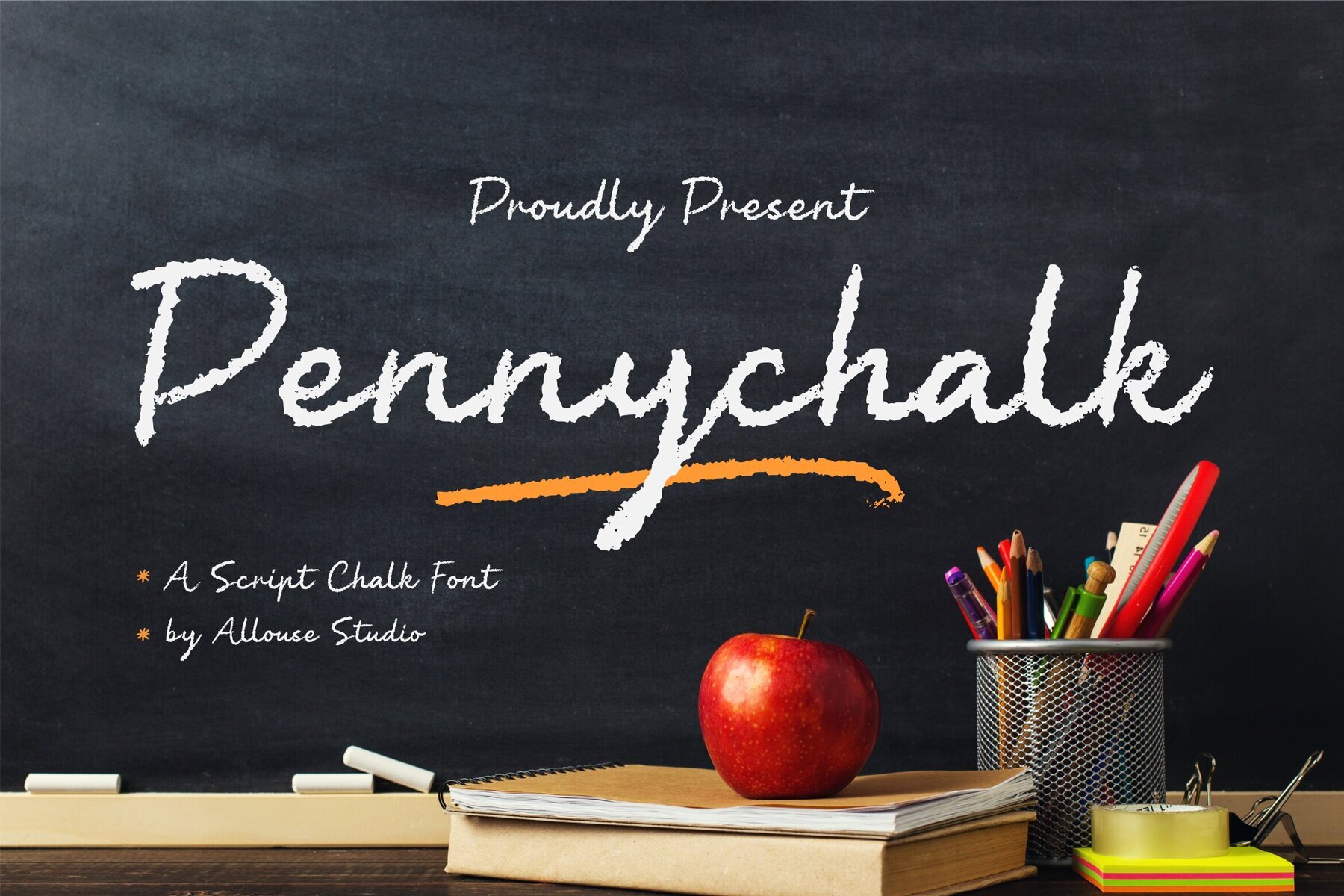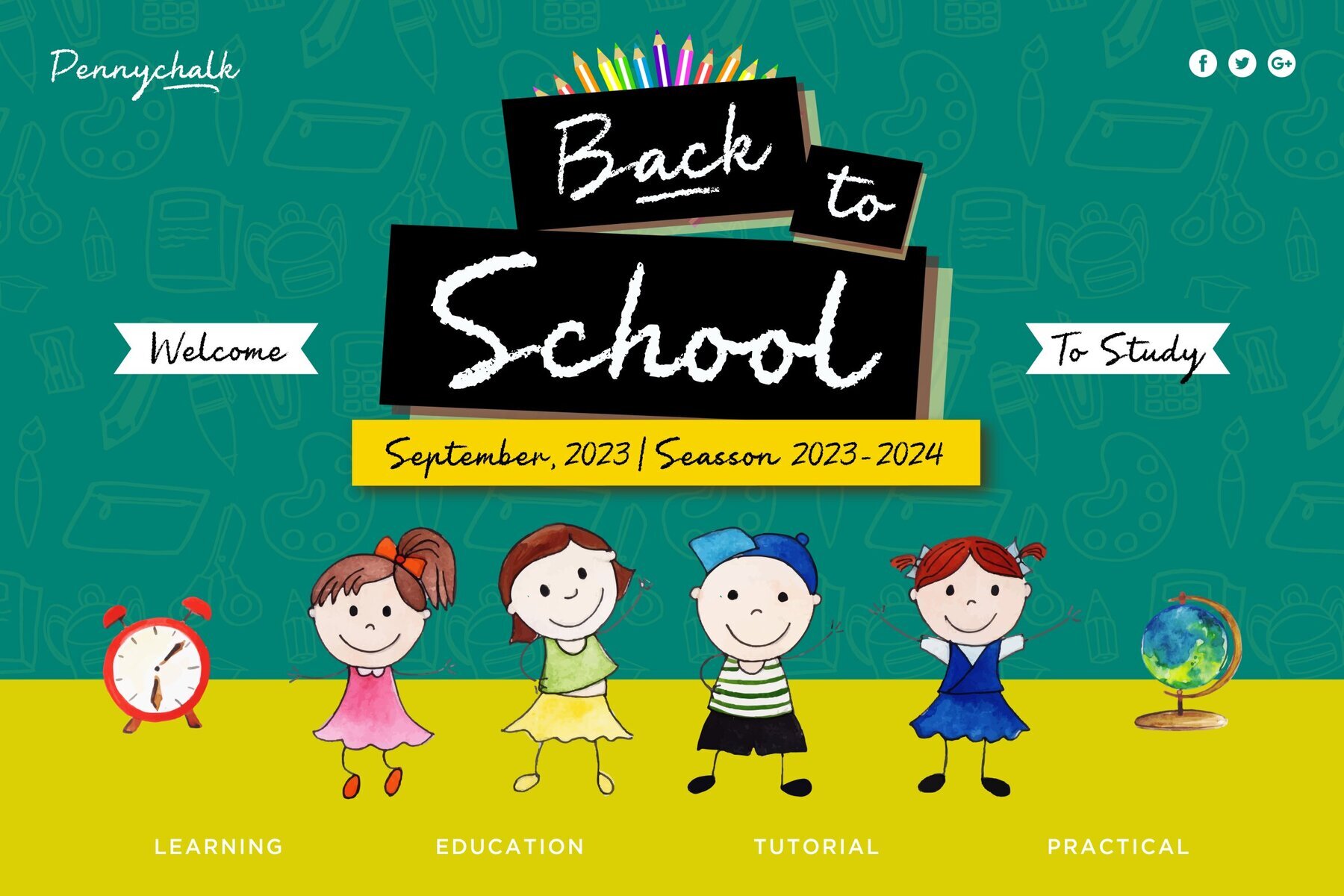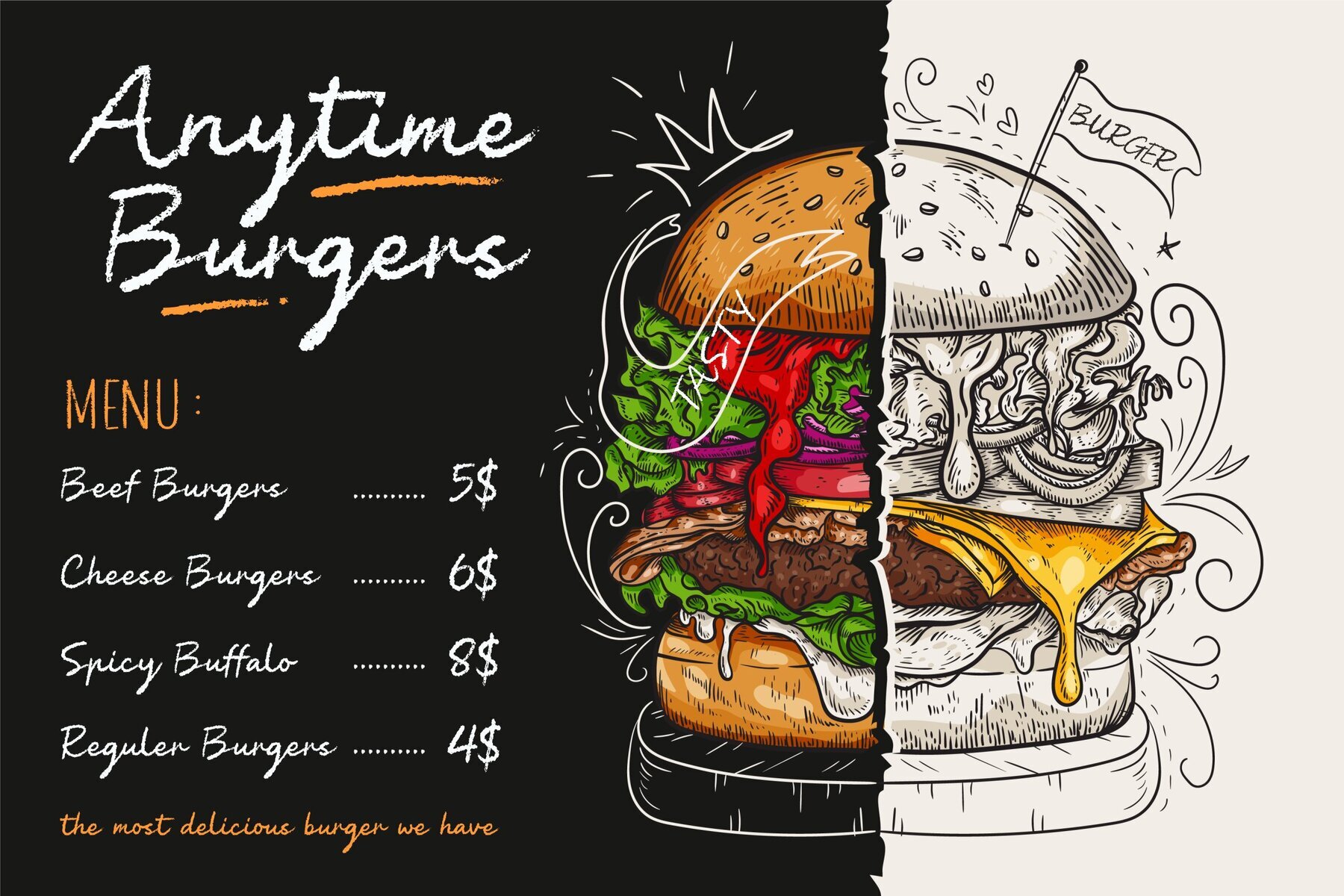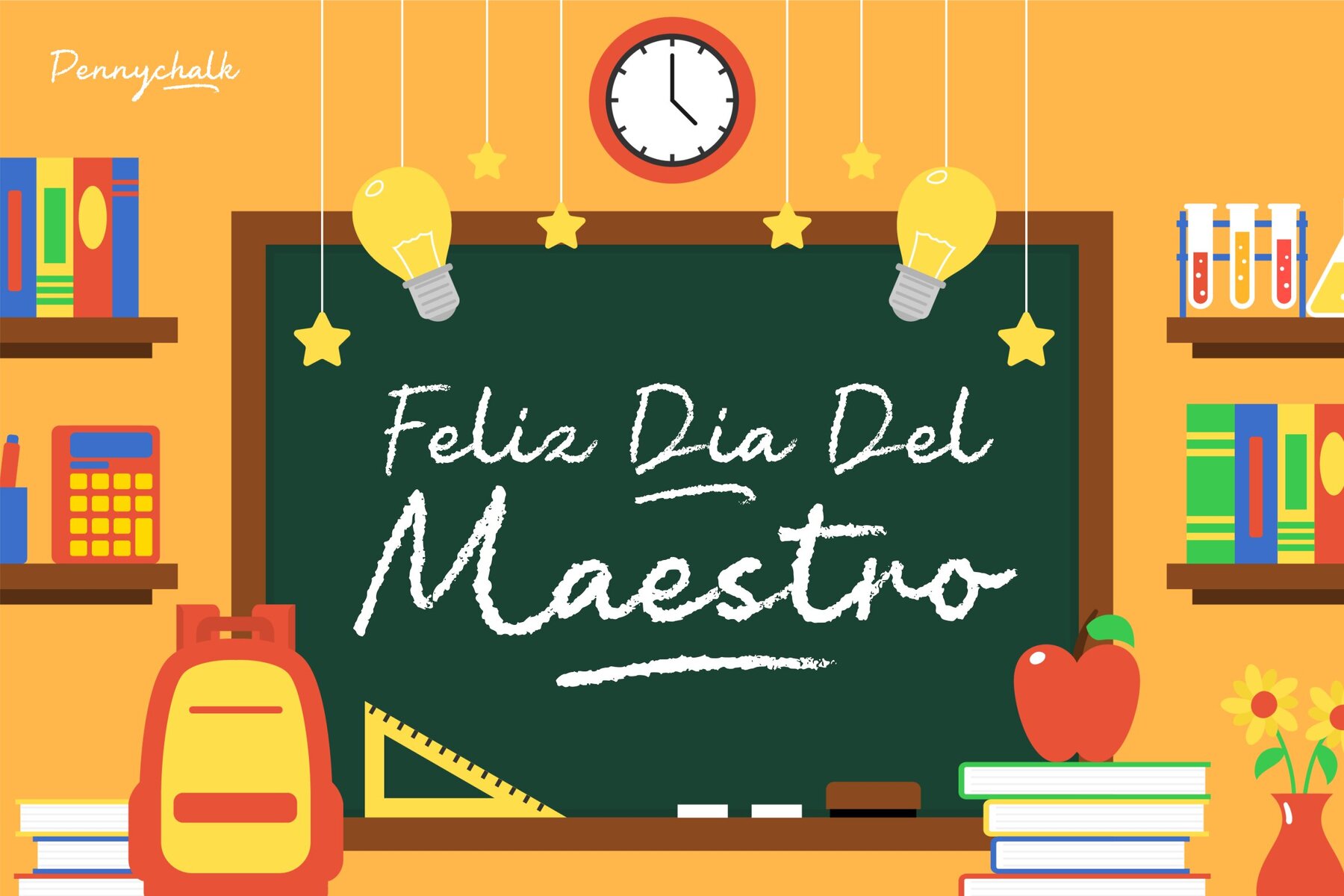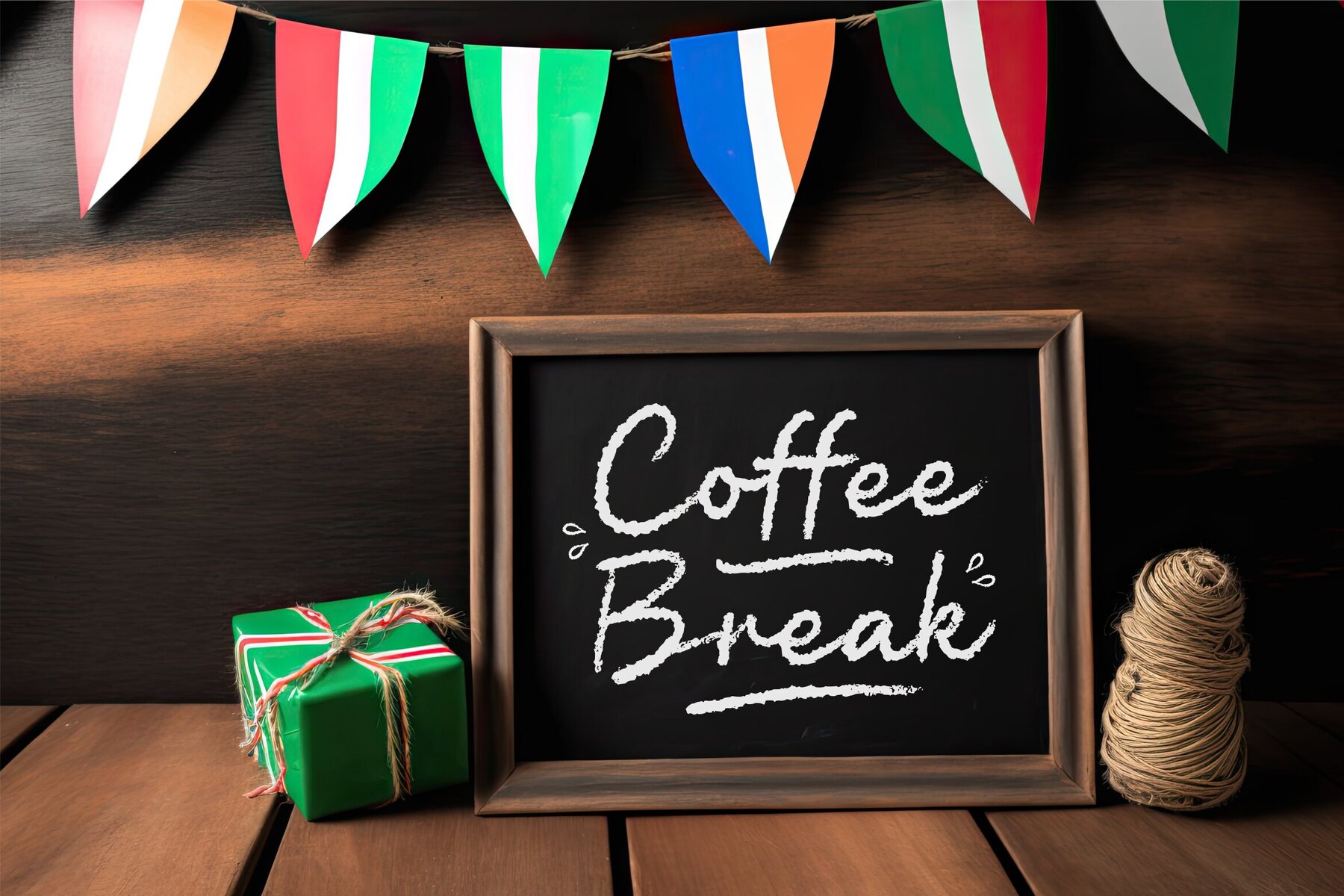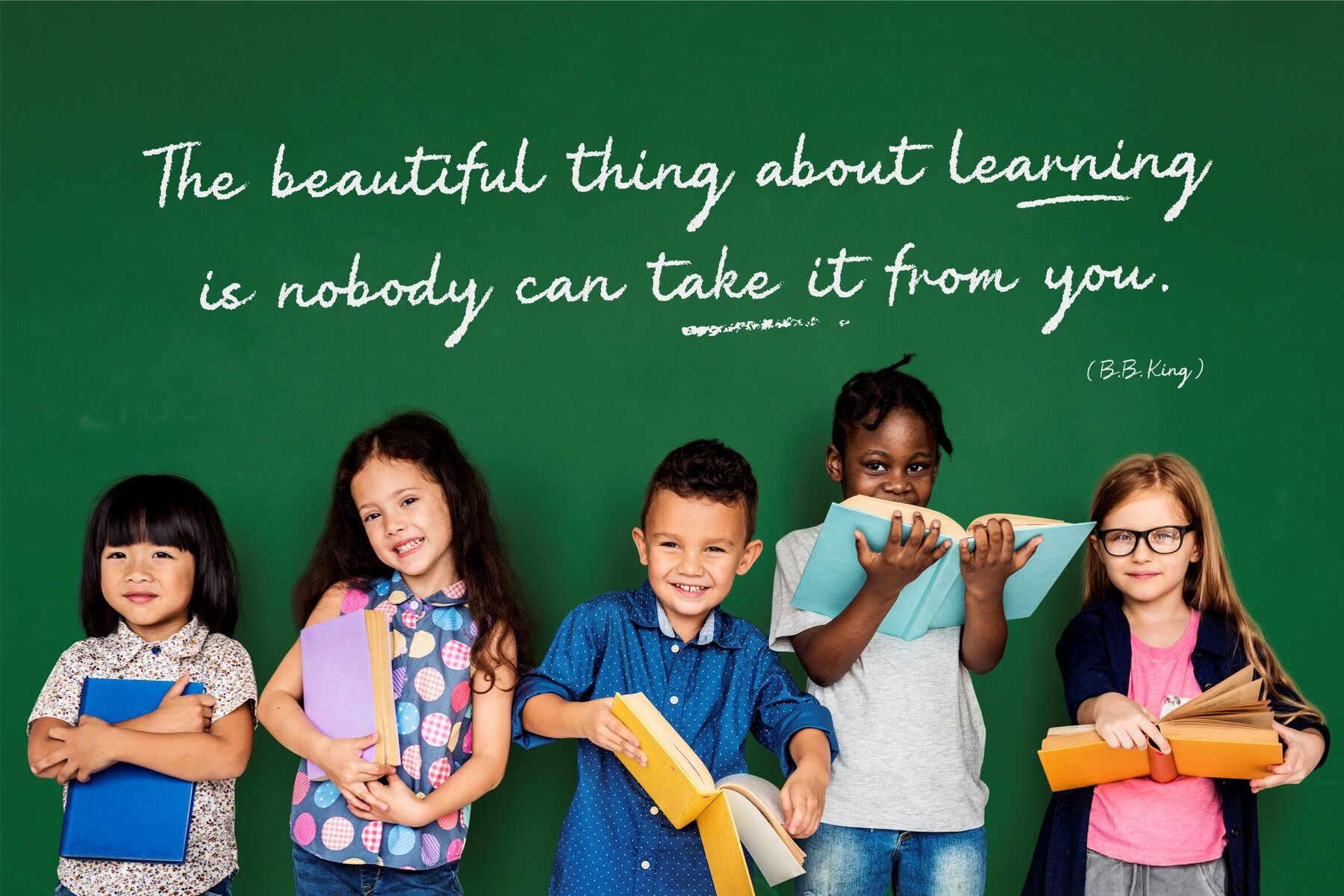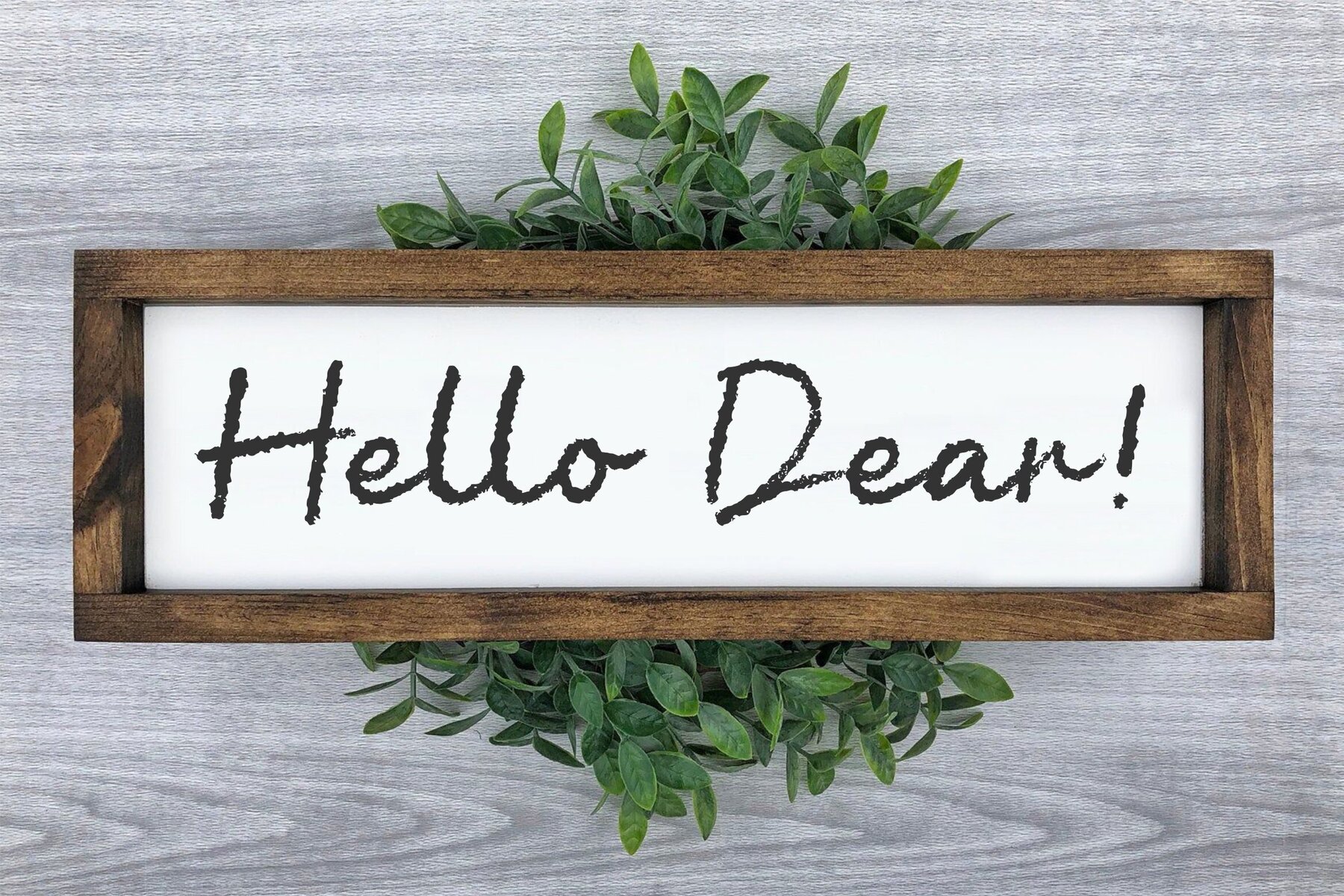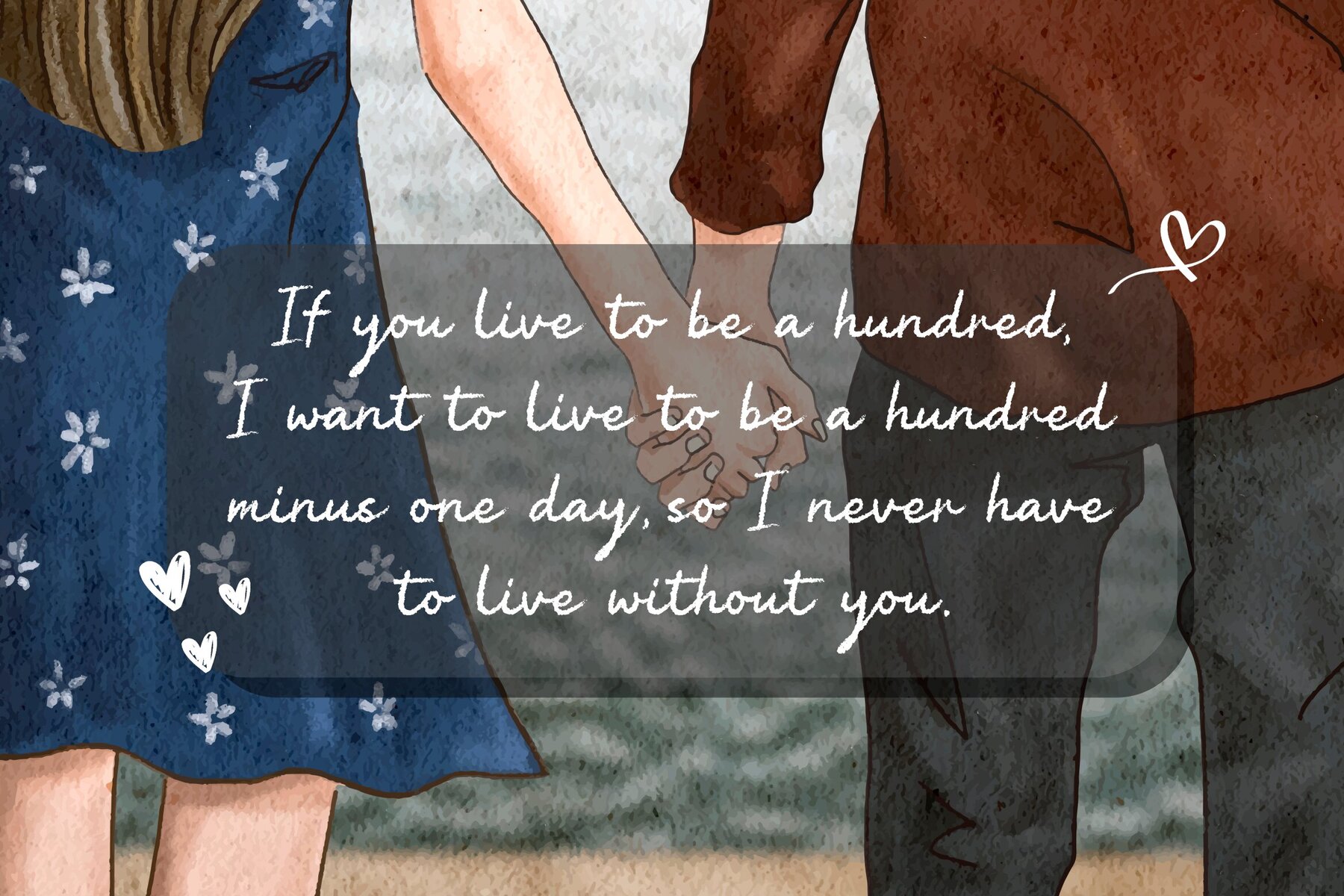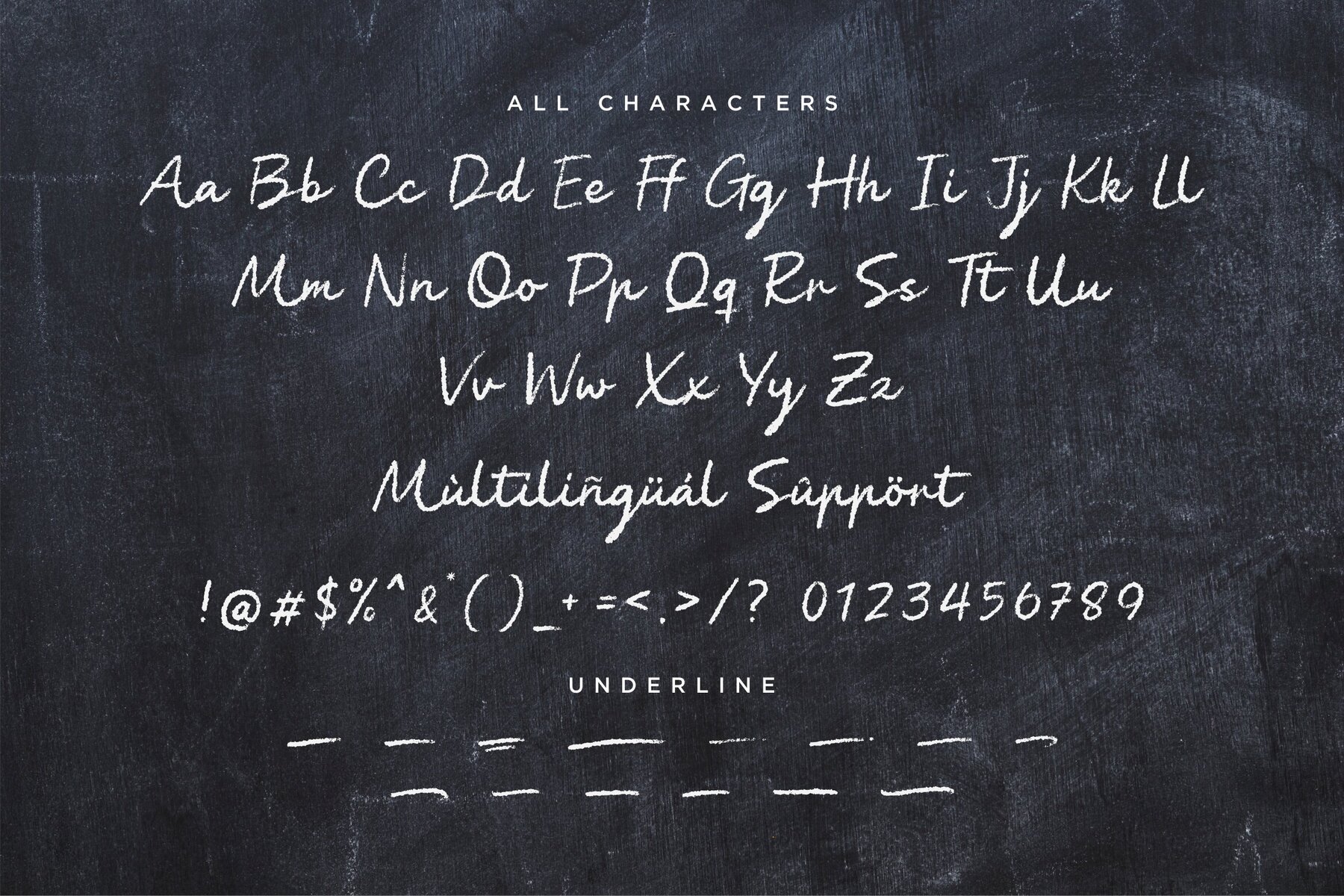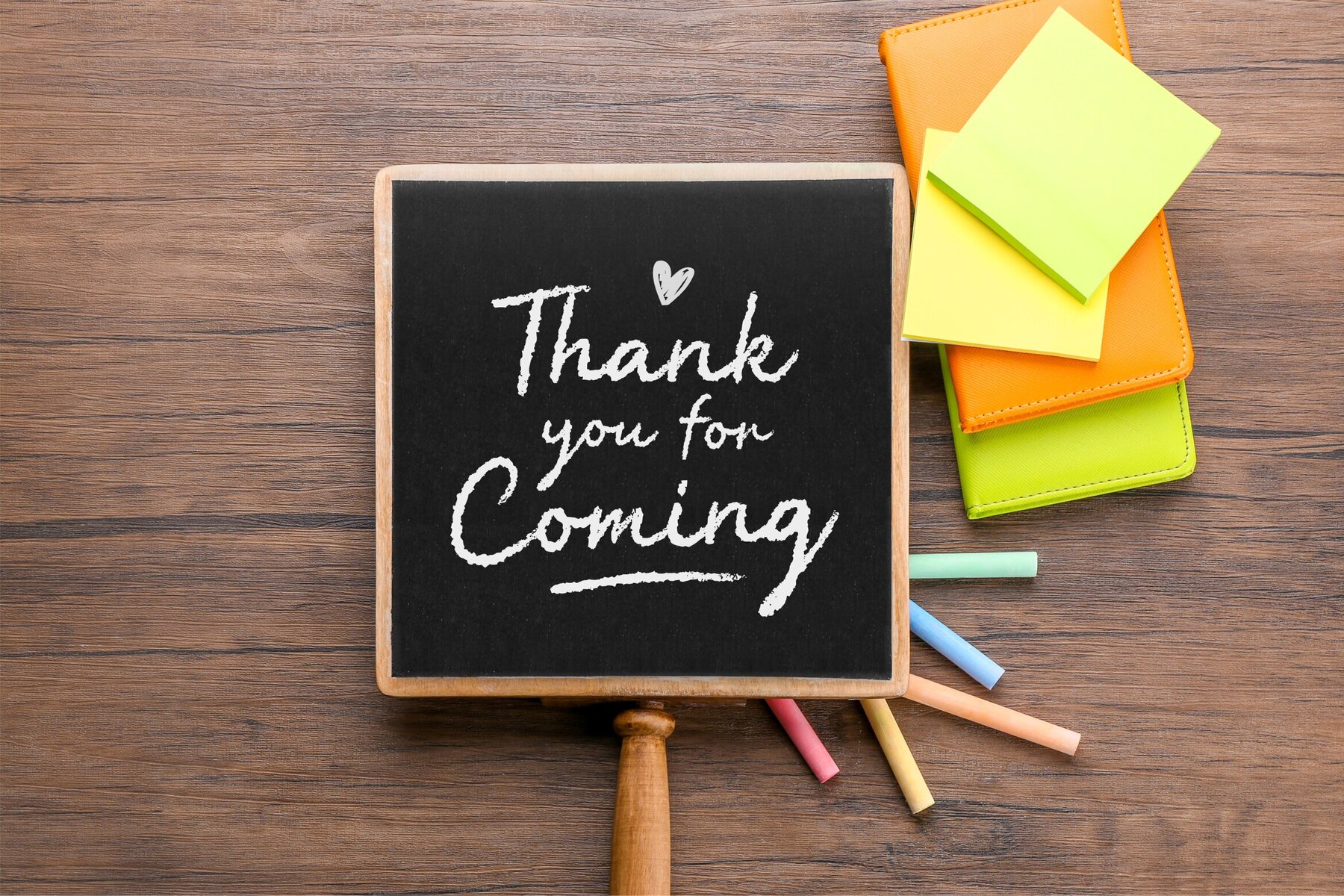
Pennychalk Font
Pennychalk Regular
Pennychalk offers a distinctive chalk-inspired aesthetic that is perfect for a range of applications. Whether you're looking to enhance product packaging, develop a branding project, or create captivating magazine layouts, this font delivers a unique touch. It's also ideal for social media posts, wedding materials, or simply adding expressive words above a background.Pennychalk: A Versatile Script Chalk Font